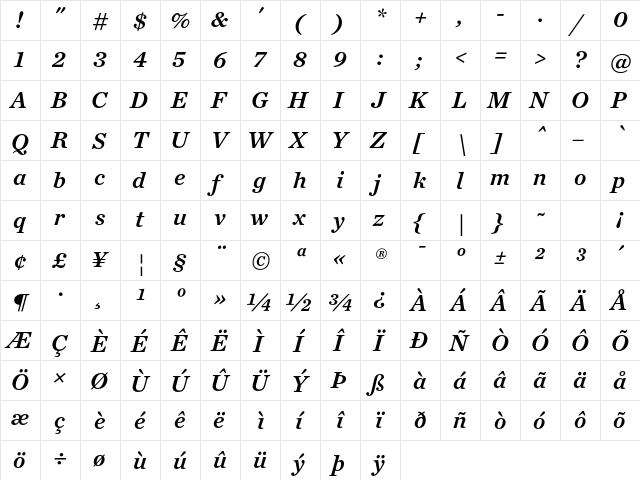
Chronicle Text G1 Semibold Italic Font Preview
| Foundry | Hoefler & Frere-Jones |
| Designer | Hoefler & Frere-Jones |
Design Context for Chronicle Text G1 Typeface
Chronicle Text G1 takes a measured approach to typography — its balanced proportions and neutral character make it a reliable workhorse for both digital and print work. Its italic angle brings a sense of urgency and motion to the letterforms. Its bold stroke weight gives it real presence on the page.
Pro Tip: Try Chronicle Text G1 for annotation and caption copy alongside an upright companion — the contrast in angle creates a dynamic but ordered typographic system.